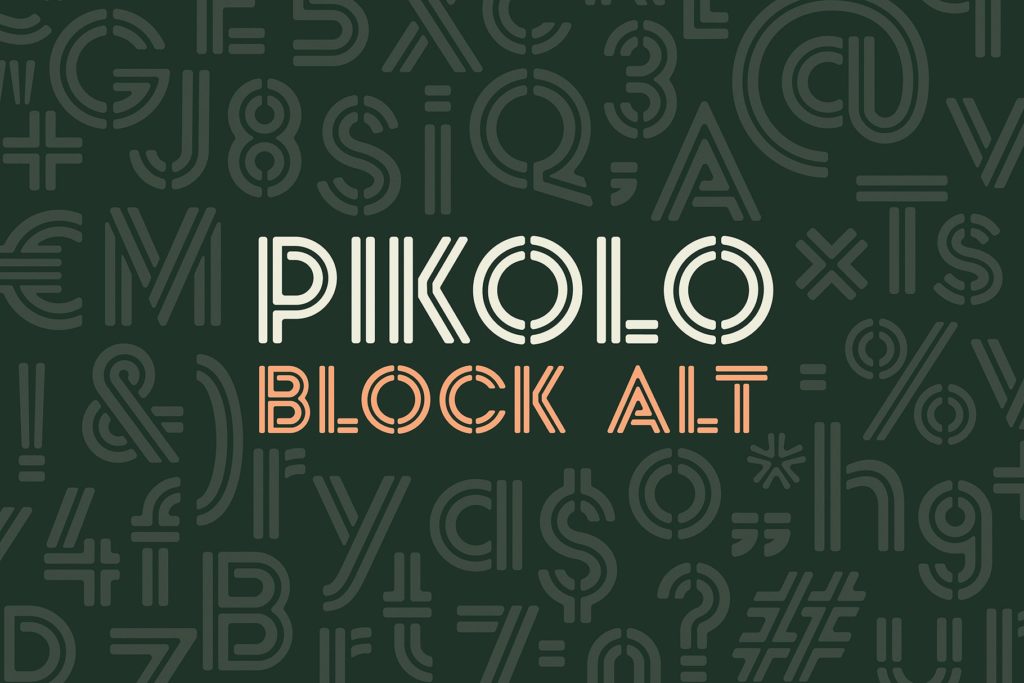
A slightly rounded display typeface, Pikolo Block Alt by Ideabuk is perfect for headings, logos and so much more!
The font comes with full upper & lower case characters, numbers, symbols and includes the most common stylistic ligatures.